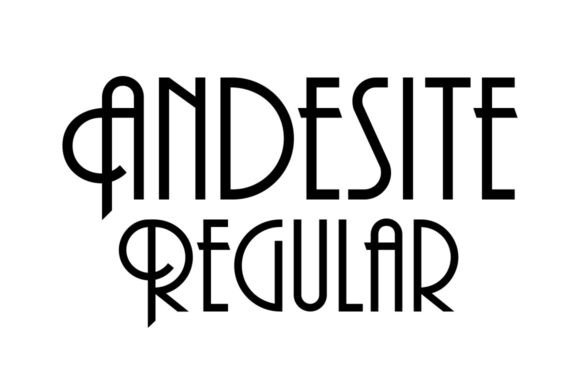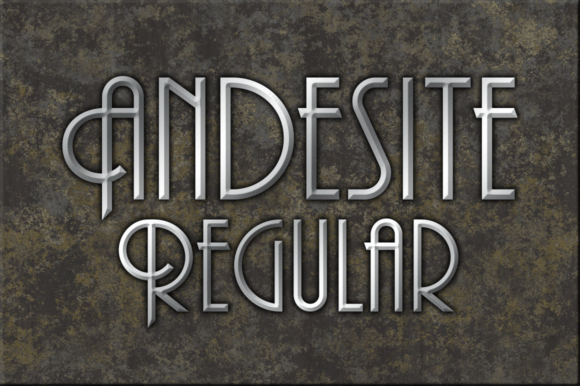
Discover the Timeless Charm of Andesite Font: A Versatile Art Deco Typeface
In the realm of typography, few fonts manage to capture the essence of a bygone era while remaining relevant in modern design. Andesite Regular is one such exceptional typeface that embodies the spirit of Art Deco, bringing a distinct retro feel to a wide array of design projects. From elegant invitations and announcements to captivating logos, Andesite Regular proves to be a versatile and stylish choice for designers and crafters alike.
The Art Deco Legacy of Andesite Font
Art Deco, a design style that emerged in the 1920s, is characterized by its use of geometric shapes, metallic materials, and ornate decorations. Andesite Regular, with its clean lines and decorative flair, pays homage to this iconic style. The font’s design is inspired by the architectural and decorative arts of the period, making it an excellent choice for projects that require a touch of vintage sophistication.
Key Features of Andesite Regular
• Geometric Precision: Andesite Regular boasts geometric shapes and precise lines, hallmarks of the Art Deco style. This feature lends the font its distinctive clarity and elegance.
• Retro Aesthetic: The font’s retro feel is undeniable, evoking memories of classic films, vintage posters, and antique advertisements. This makes it perfect for designers looking to add a nostalgic touch to their work.
• Versatility: Whether you’re designing an invitation, announcement, logo, or any other project, Andesite Regular adapts seamlessly. Its versatility is one of its most appealing qualities, making it a valuable addition to any designer’s toolkit.
• Legibility: Despite its decorative nature, Andesite Regular remains highly legible, ensuring that your message is conveyed clearly and effectively.
Applications of Andesite Font in Design
• Invitations and Announcements: Add a touch of vintage glamour to your event invitations or announcements. Andesite Regular’s elegant and sophisticated look makes it perfect for weddings, parties, and formal events.
• Logos and Branding: Create a memorable brand identity with Andesite Regular. Its unique blend of modernity and nostalgia can help your brand stand out in a crowded market.
• Packaging Design: Give your product packaging a retro makeover with Andesite Regular. The font’s Art Deco charm can add a luxurious feel to your products, making them more appealing to customers.
• Digital and Print Media: From website headers to print advertisements, Andesite Regular can elevate your design with its classic yet contemporary appeal.
Tips for Using Andesite Font Effectively
• Pair with Complementary Fonts: Combine Andesite Regular with simpler fonts to create visual interest and hierarchy in your design.
• Experiment with Colors: Art Deco is known for its bold color schemes. Don’t be afraid to experiment with vibrant colors to enhance the retro feel of Andesite Regular.
• Pay Attention to Spacing: Ensure that your text is well-spaced to maintain readability and to highlight the font’s geometric features.
Font Name Andesite Font
Author Harris Design
Andesite Regular is more than just a font; it’s a design statement that brings the elegance and charm of Art Deco to your projects. Its versatility, combined with its distinctive retro feel, makes it an invaluable resource for designers and crafters looking to add a touch of sophistication and nostalgia to their work. Whether you’re creating invitations, logos, or any other design project, Andesite Regular is sure to leave a lasting impression.